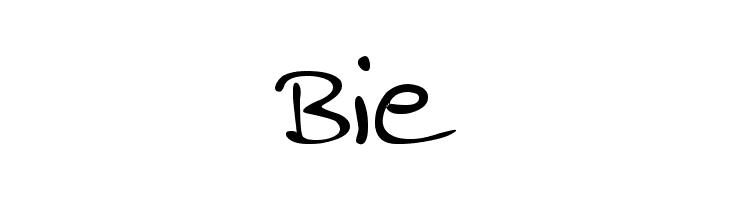
A bold, rounded font with a playful and modern style.
A bold, decorative font styled like a filmstrip, perfect for cinematic themes.
A bold, geometric font with a modern and decorative style.
A modern geometric font with consistent stroke width and elegant numerals.
A modern, geometric font with unique cutouts and a futuristic style.
A playful, informal handwritten font with quirky, irregular strokes.
A playful, casual handwritten font with bold, expressive strokes.
A playful, handwritten font with fluid and organic letterforms.
A playful, casual handwritten font with smooth, rounded strokes.